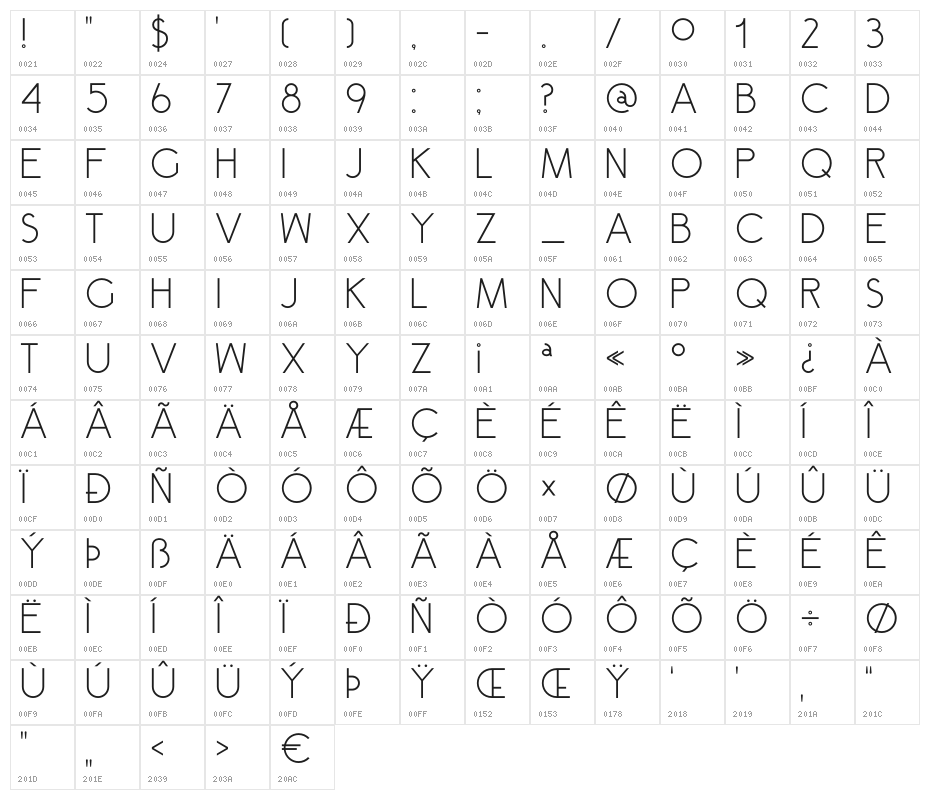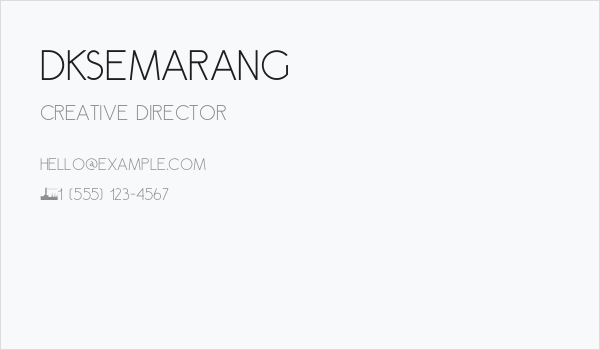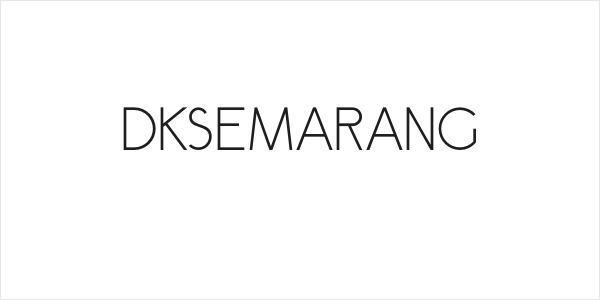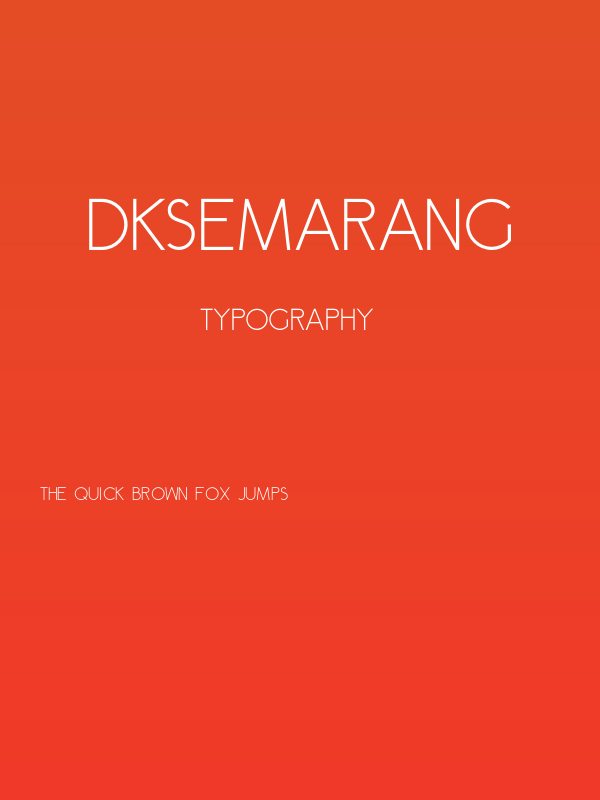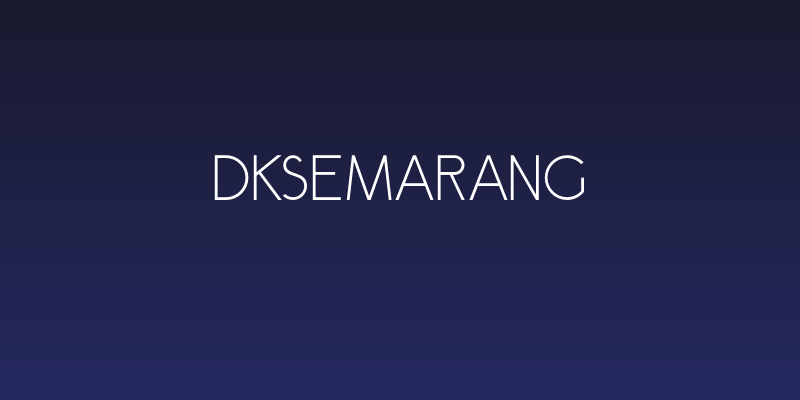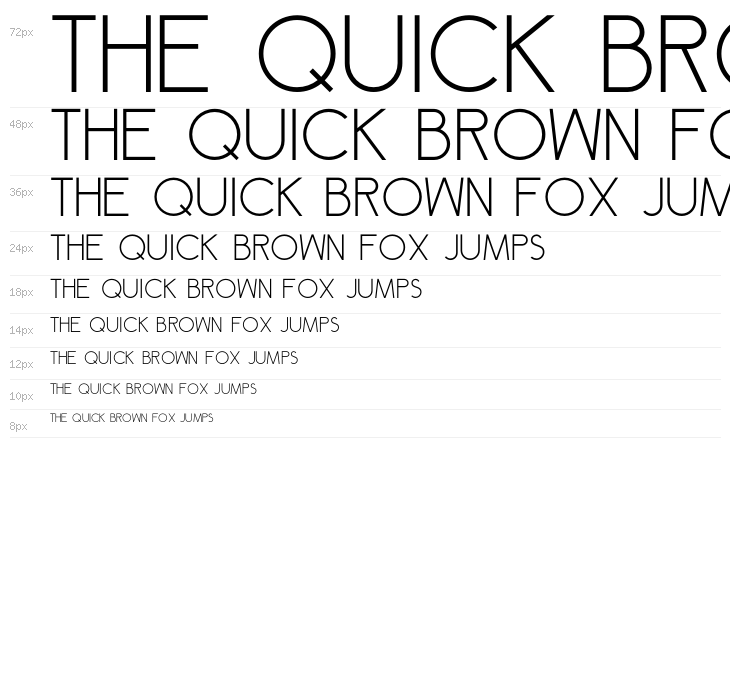
DKSemarang Font
DKSemarang Description
This font features a clean and modern sans-serif style with a geometric structure. The characters are uniform in width, providing a balanced and harmonious appearance. The uppercase and lowercase letters are well-proportioned, with a consistent stroke width that gives a sleek and contemporary look. The numerals are clear and legible, making them suitable for various applications. Special characters are included, maintaining the font's minimalist aesthetic. Overall, this font is versatile and can be used in both digital and print media.
Proposed ProjectsIdeal for branding, advertising, web design, and editorial layouts.